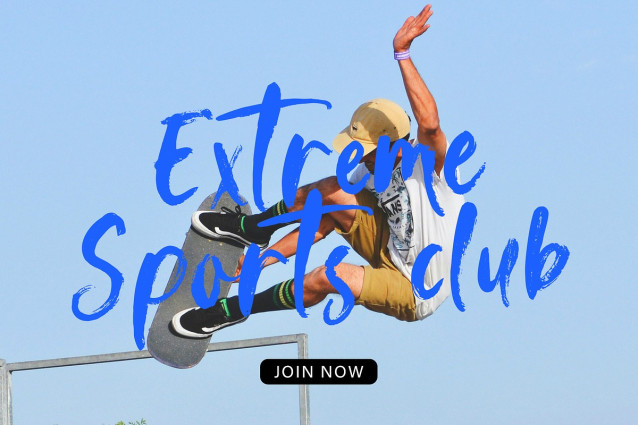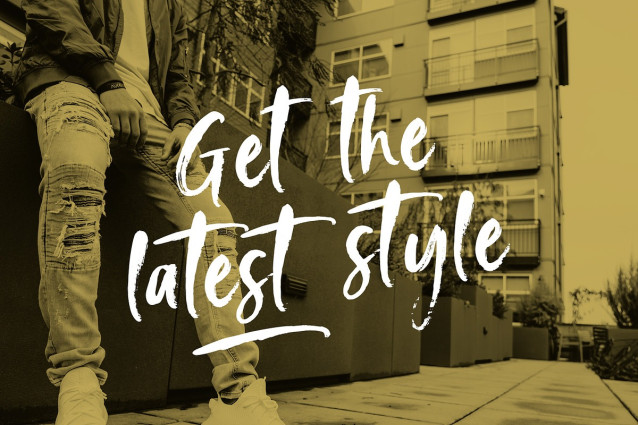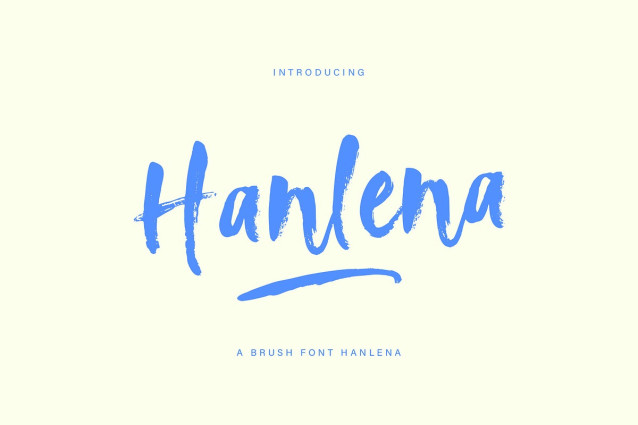
Hanlena Font
Hanlena Font – Modern handwritten font with brush texture. Its authentic texture makes it the perfect choice for branding and digital design.